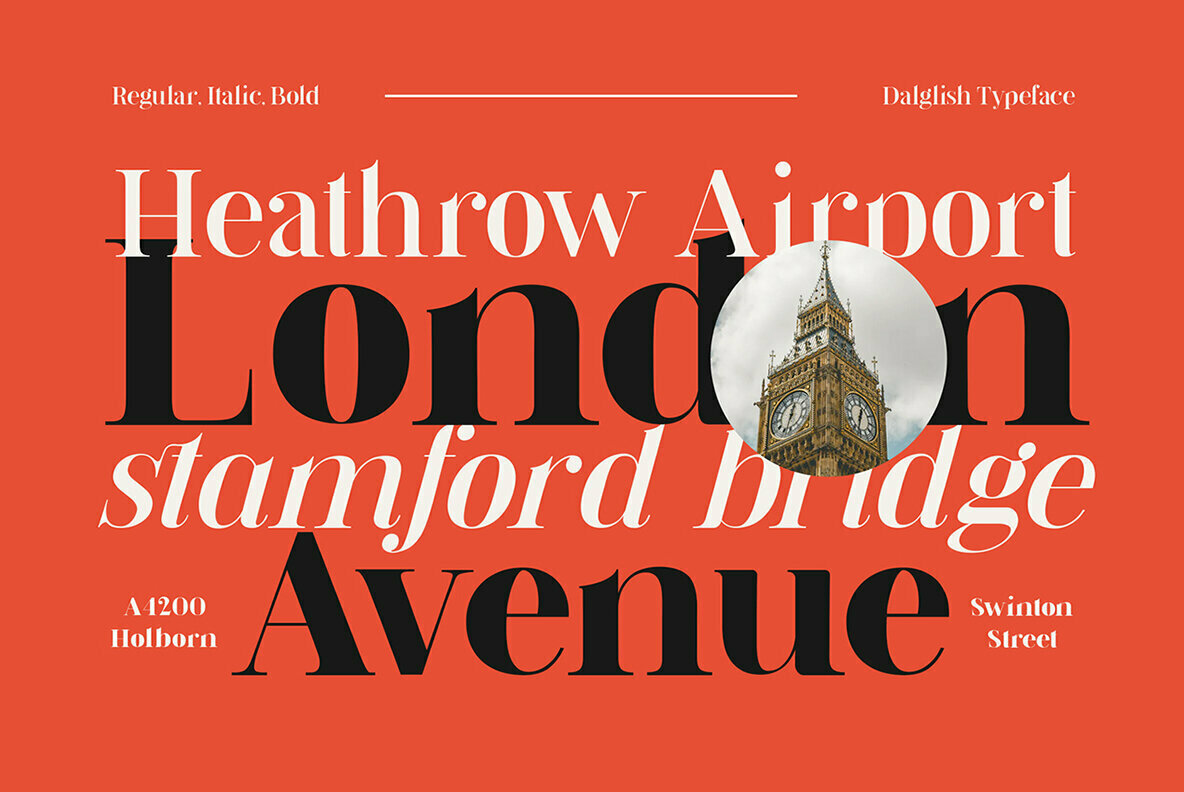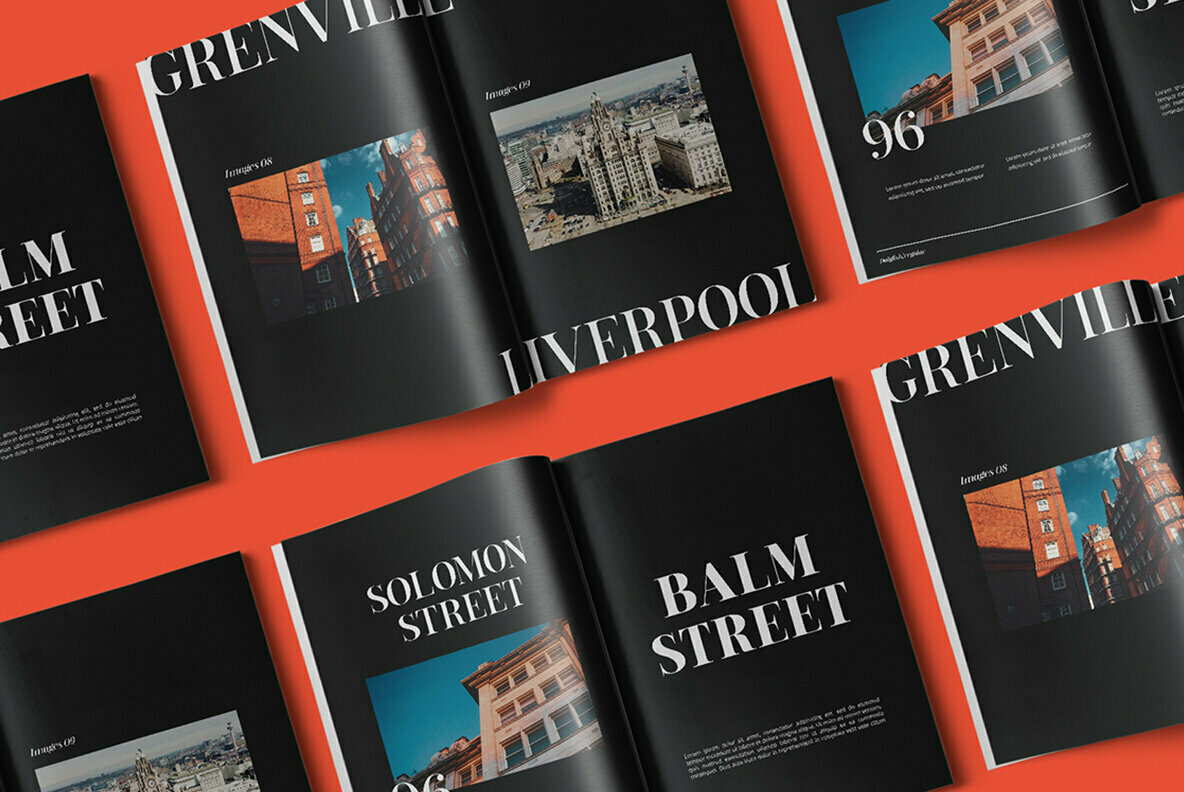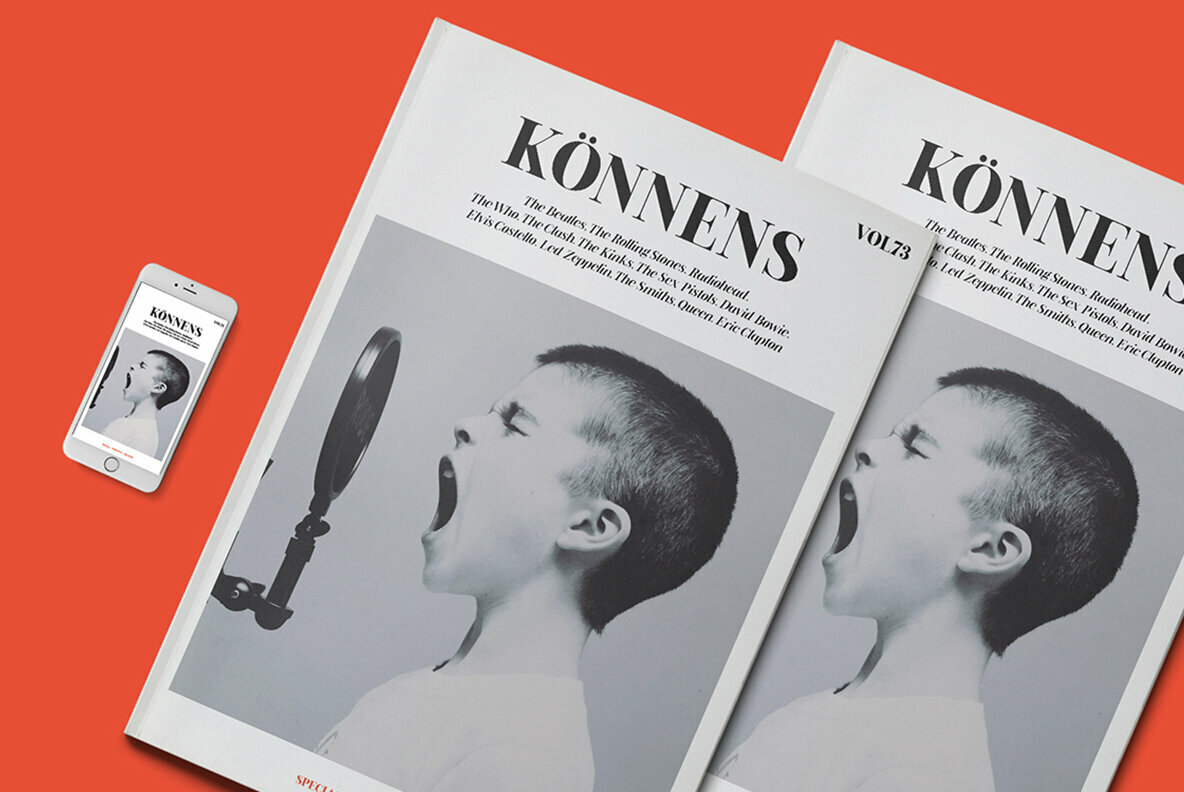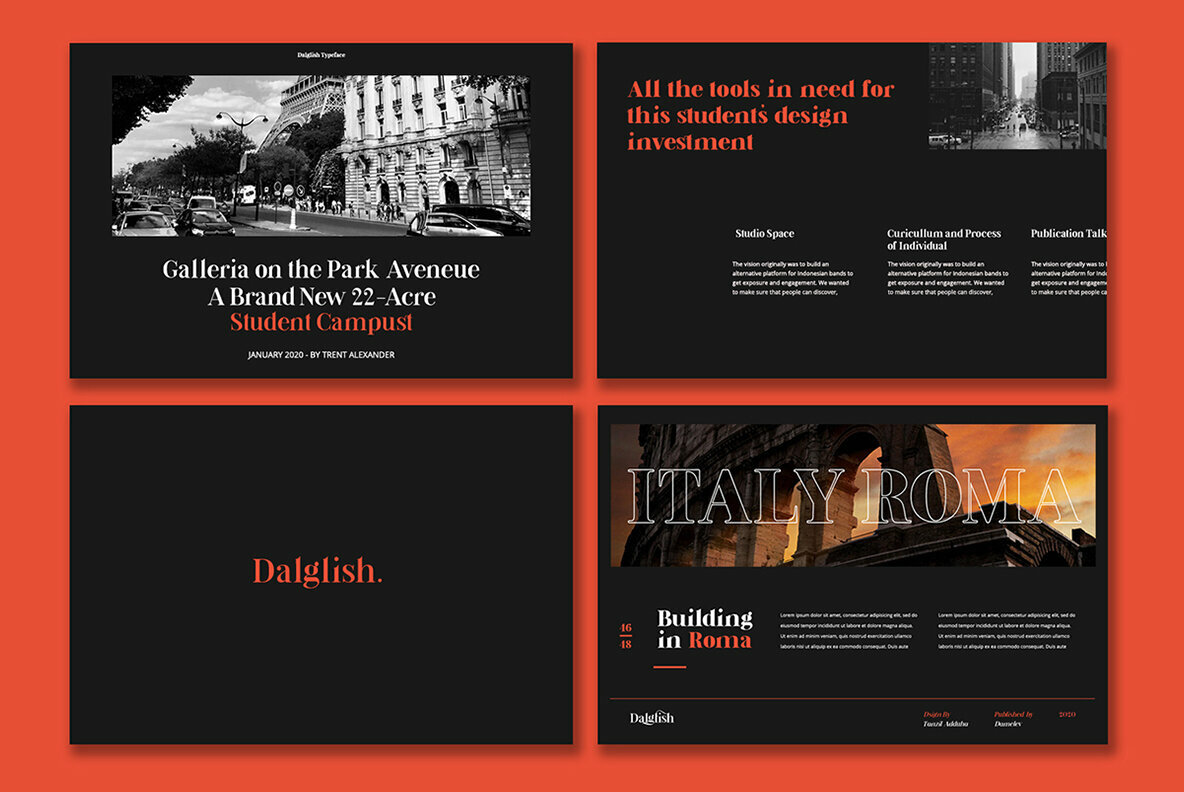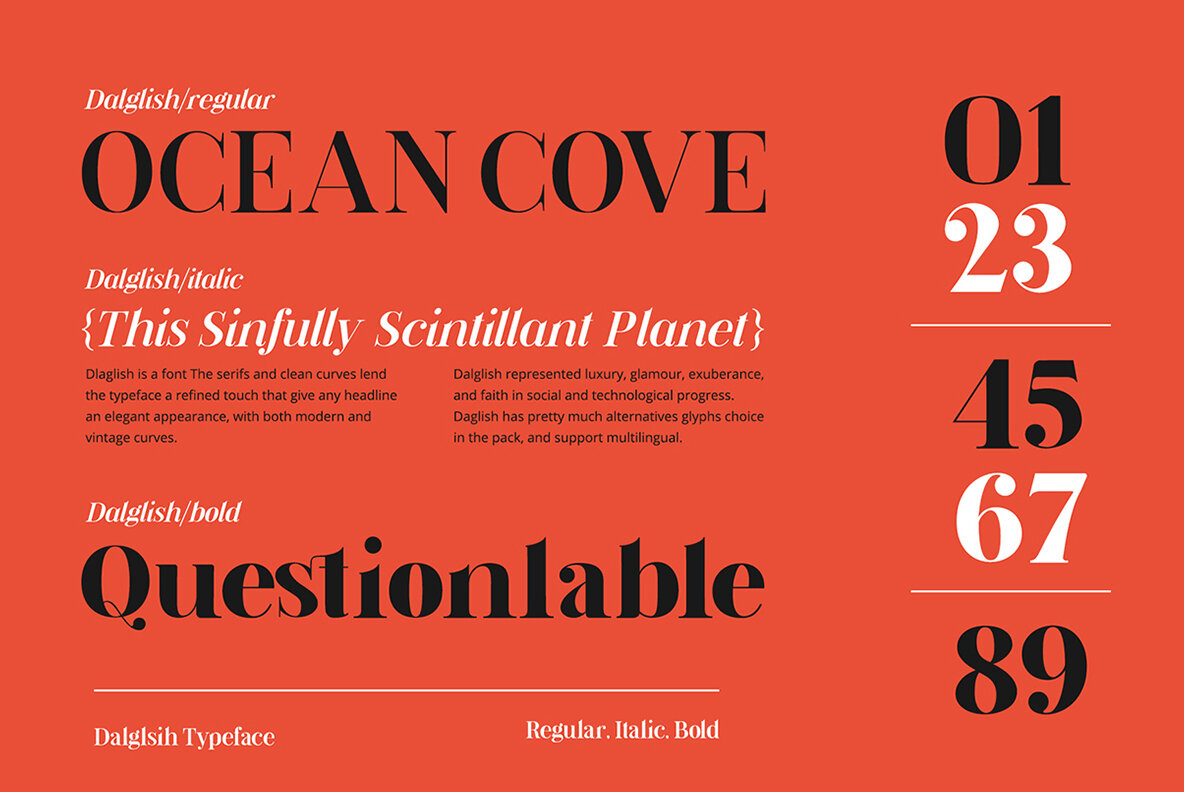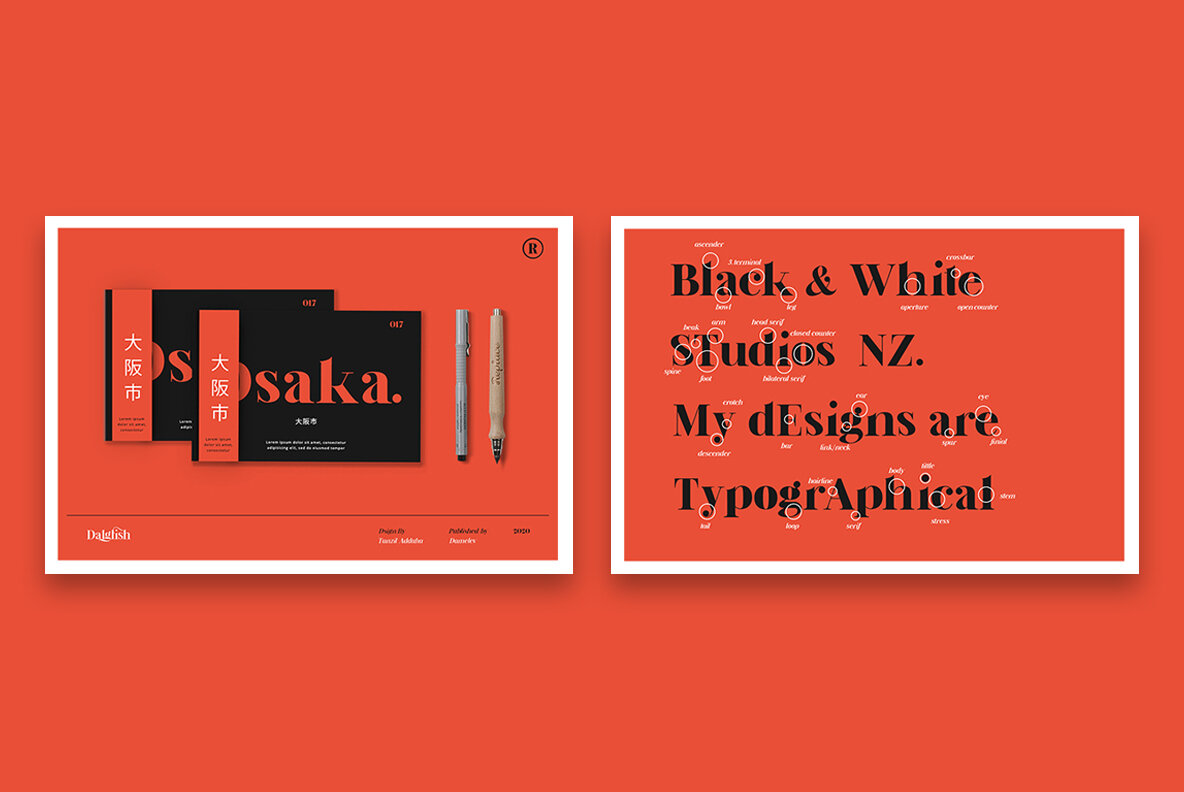
Dalglish Font
Dalglish Typeface imbues your designs with the timeless elegance associated with the Art Deco movement, inspired by 19th-century French poster design. With serifs and clean curves, this typeface exudes luxury, glamour, and a faith in progress. Its modern and vintage curves make headlines graceful, while offering a nod to the past. Features: Perfectly suited for a range of creative projects, Dalglish Typeface excels in logos, apparel, badges, invitations, packaging, headlines, posters, magazines, greeting cards, and wedding invites. Designed for integration with Adobe programs including InDesign, Illustrator, and Photoshop, it seamlessly supports open type features and multilingual capabilities.Dalglish Typeface: A Blend of Art Deco Elegance
Tanzil Adduha’s design catalog captures a striking interplay of sharp detail and structural clarity, offering a fresh perspective on modular typography and geometric expression. His work, often anchored in clean, contemporary lines, bridges architectural logic with experimental aesthetics—drawing interest from...